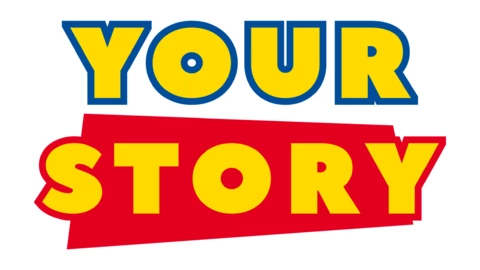
Font Generator Text Effect
Create a text effect "Font Generator" toy story logo with our online custom font generator.
Transform your text into captivating designs with our innovative font style text effect generator. Create eye-catching logos, inspired by the iconic Toy Story movie, or add a touch of animated charm to your projects with our vast collection of fonts, perfect for films, anime, cartoons, and more.